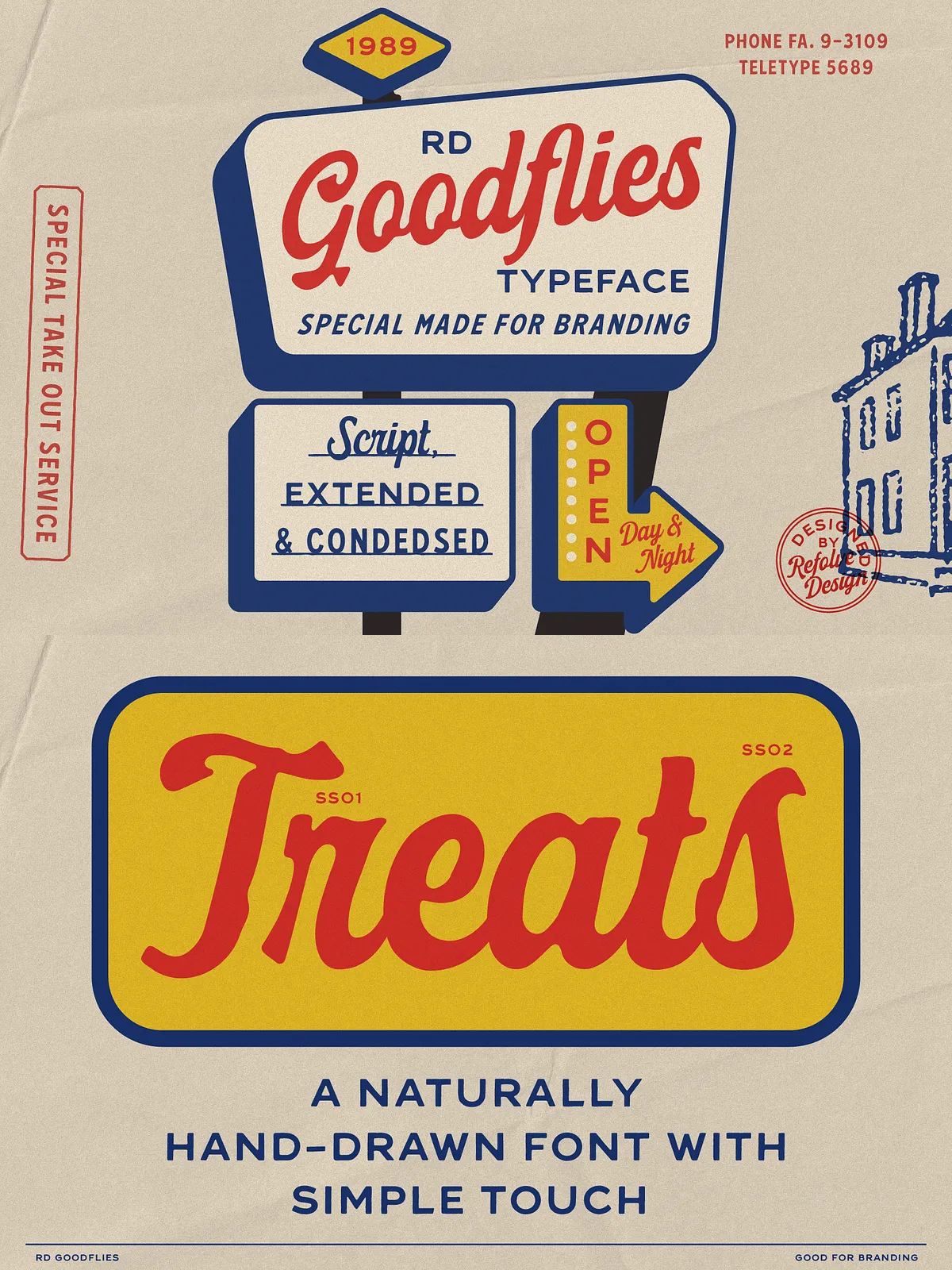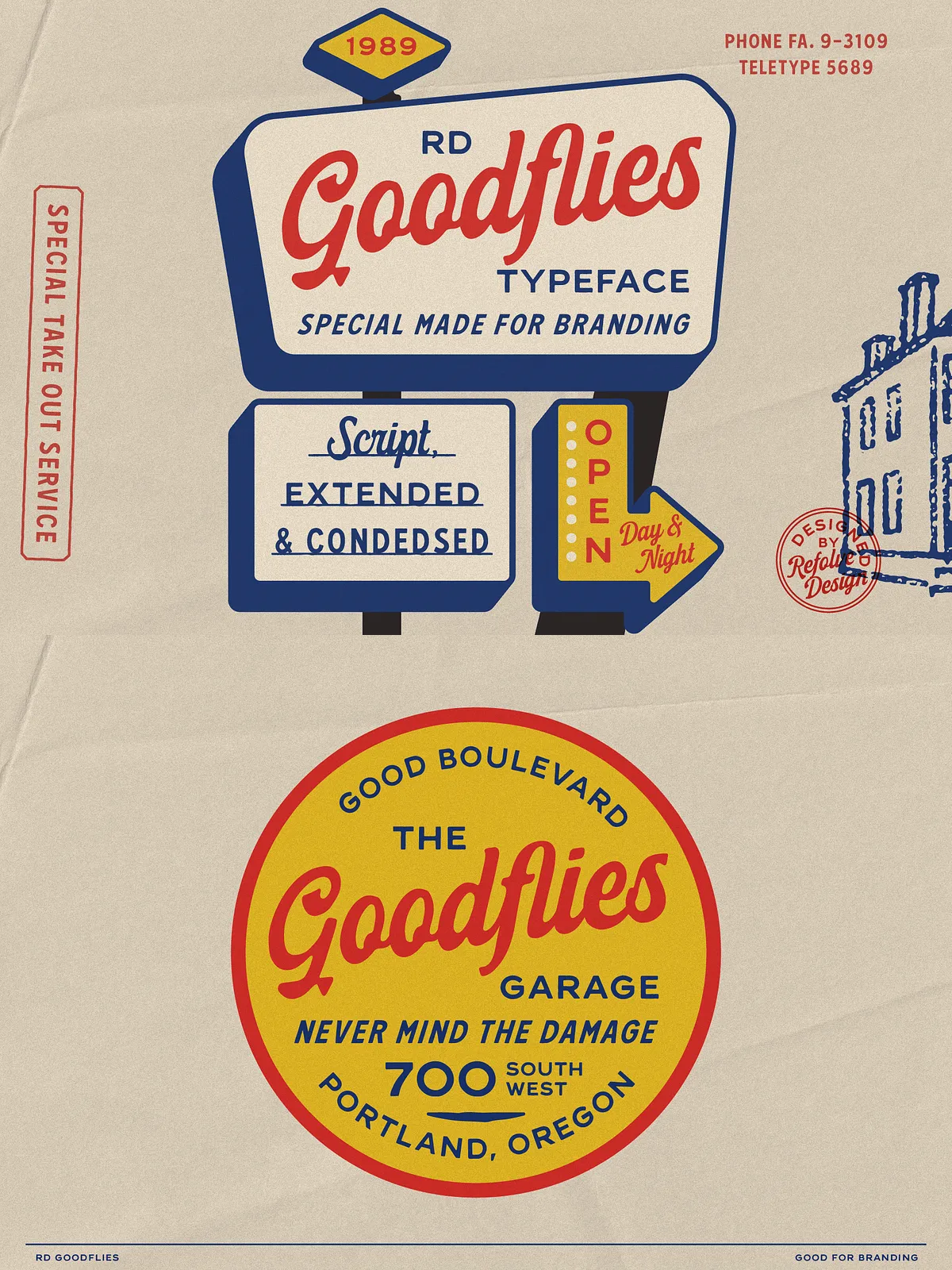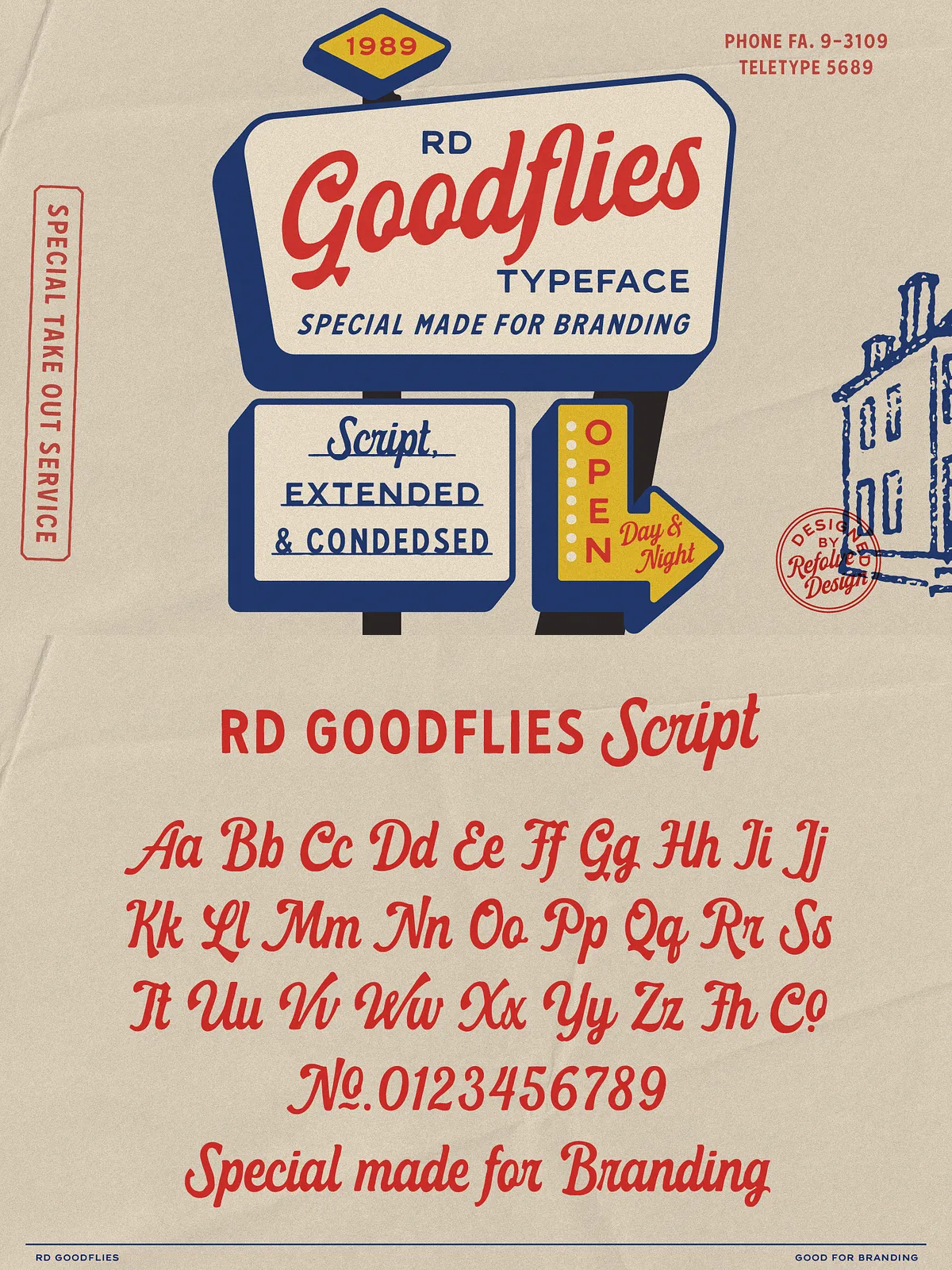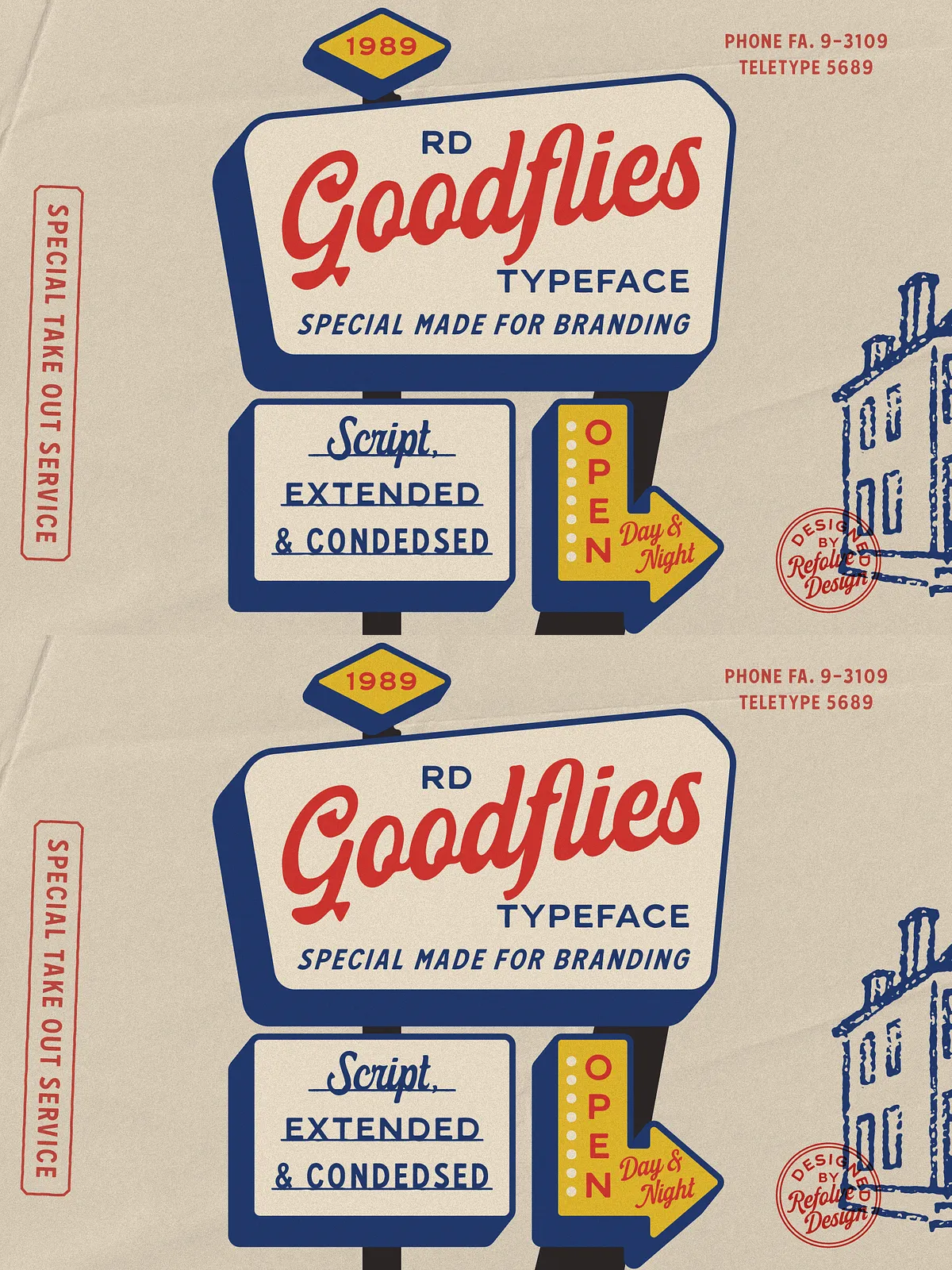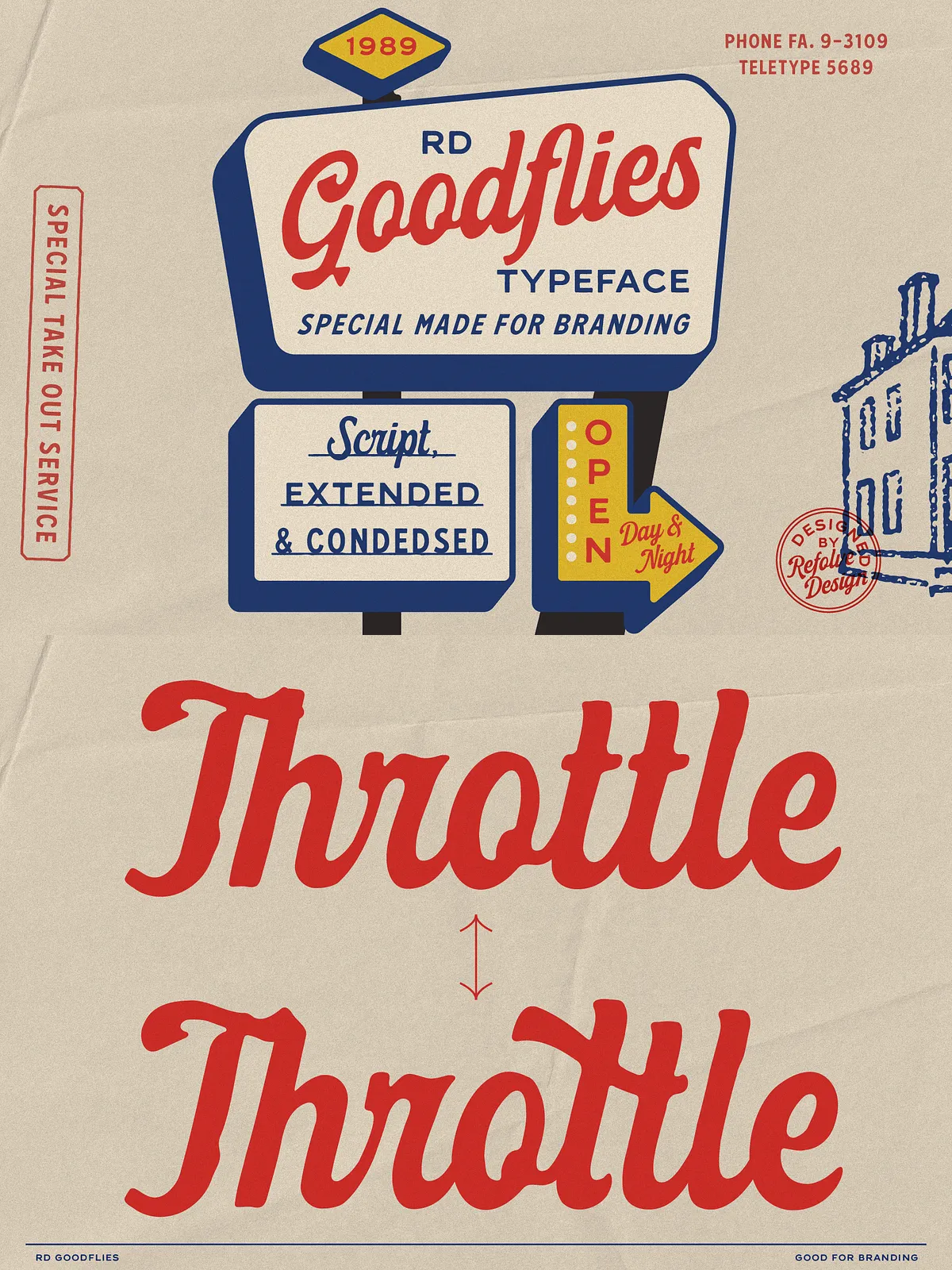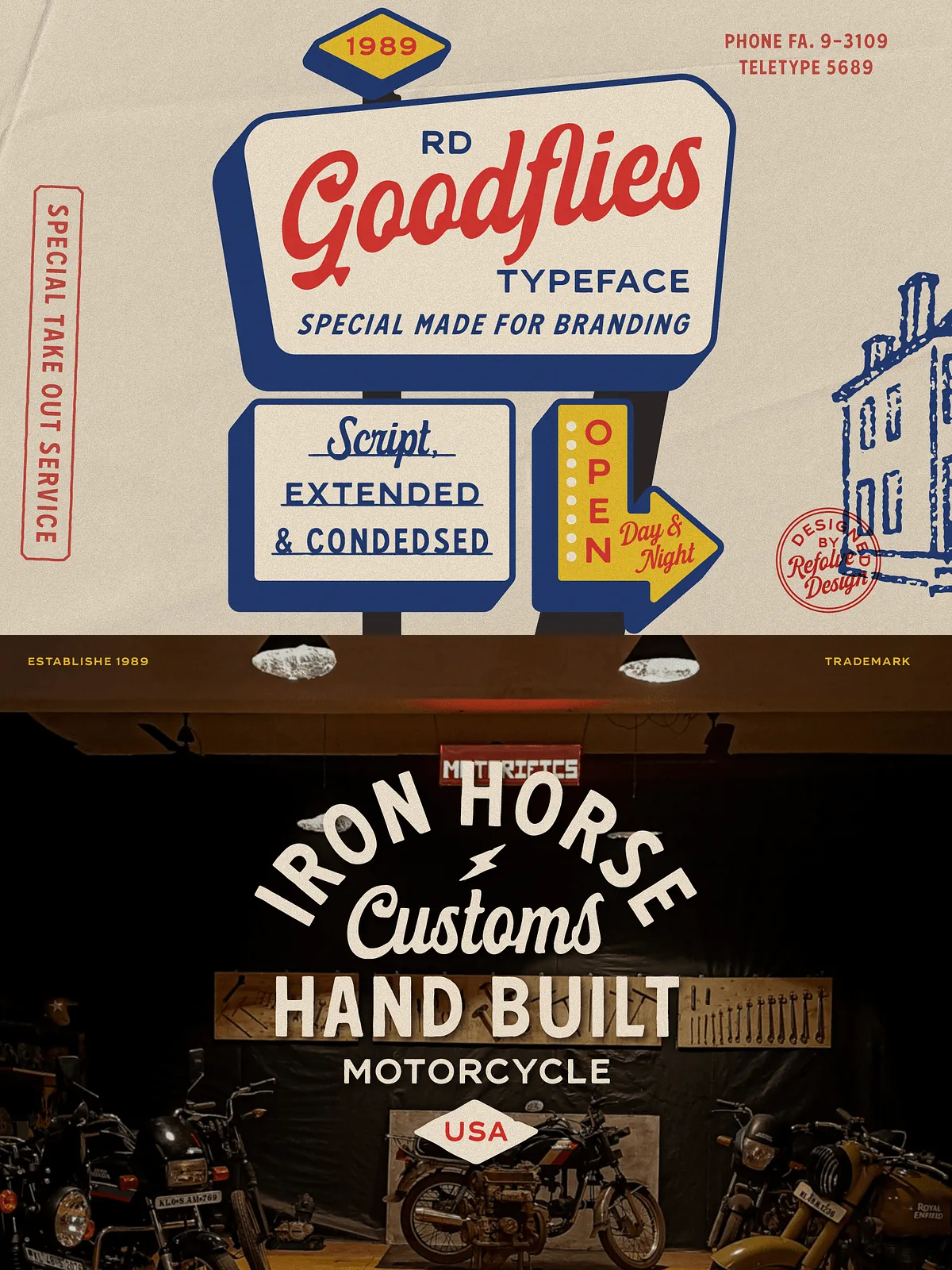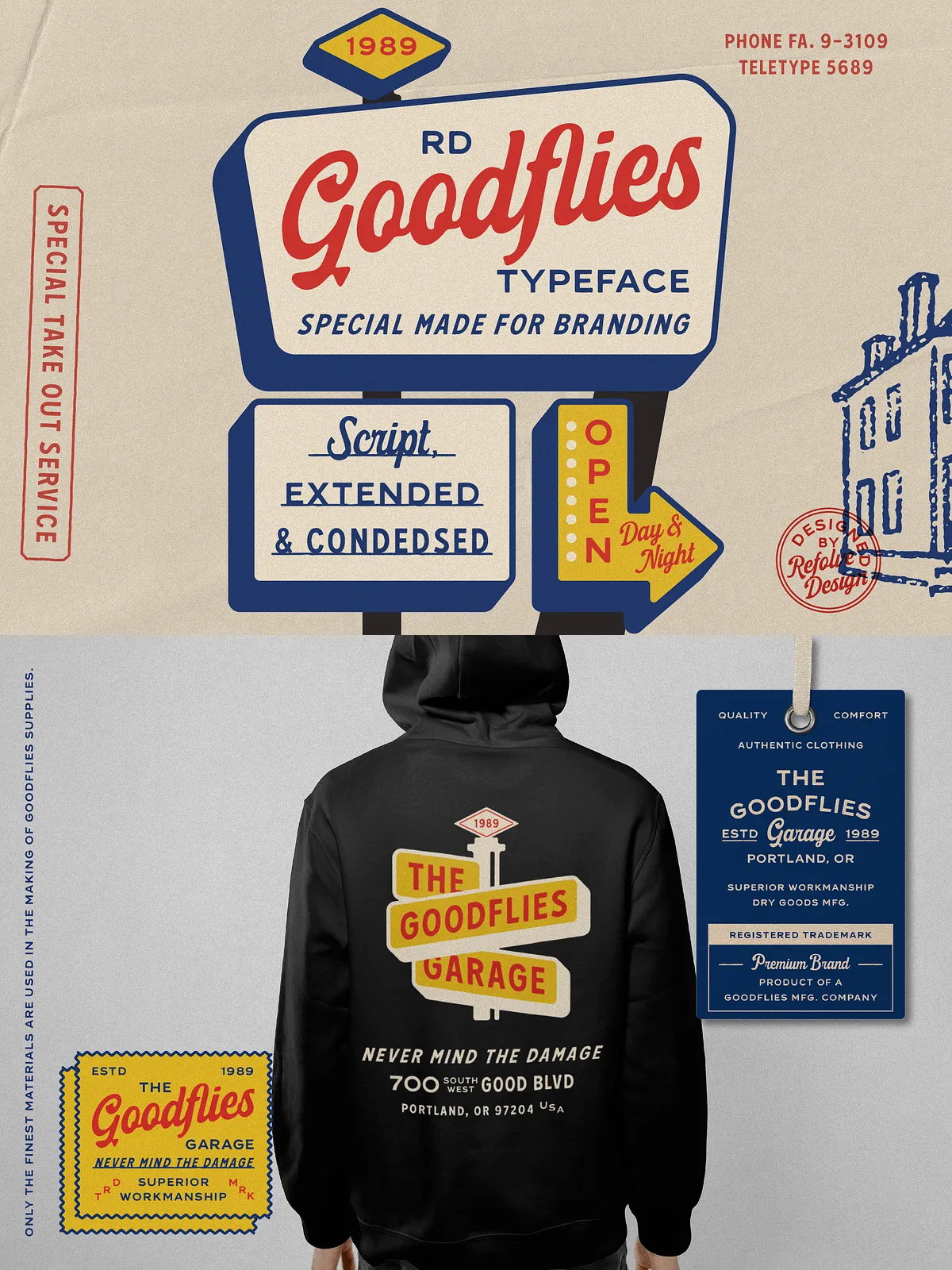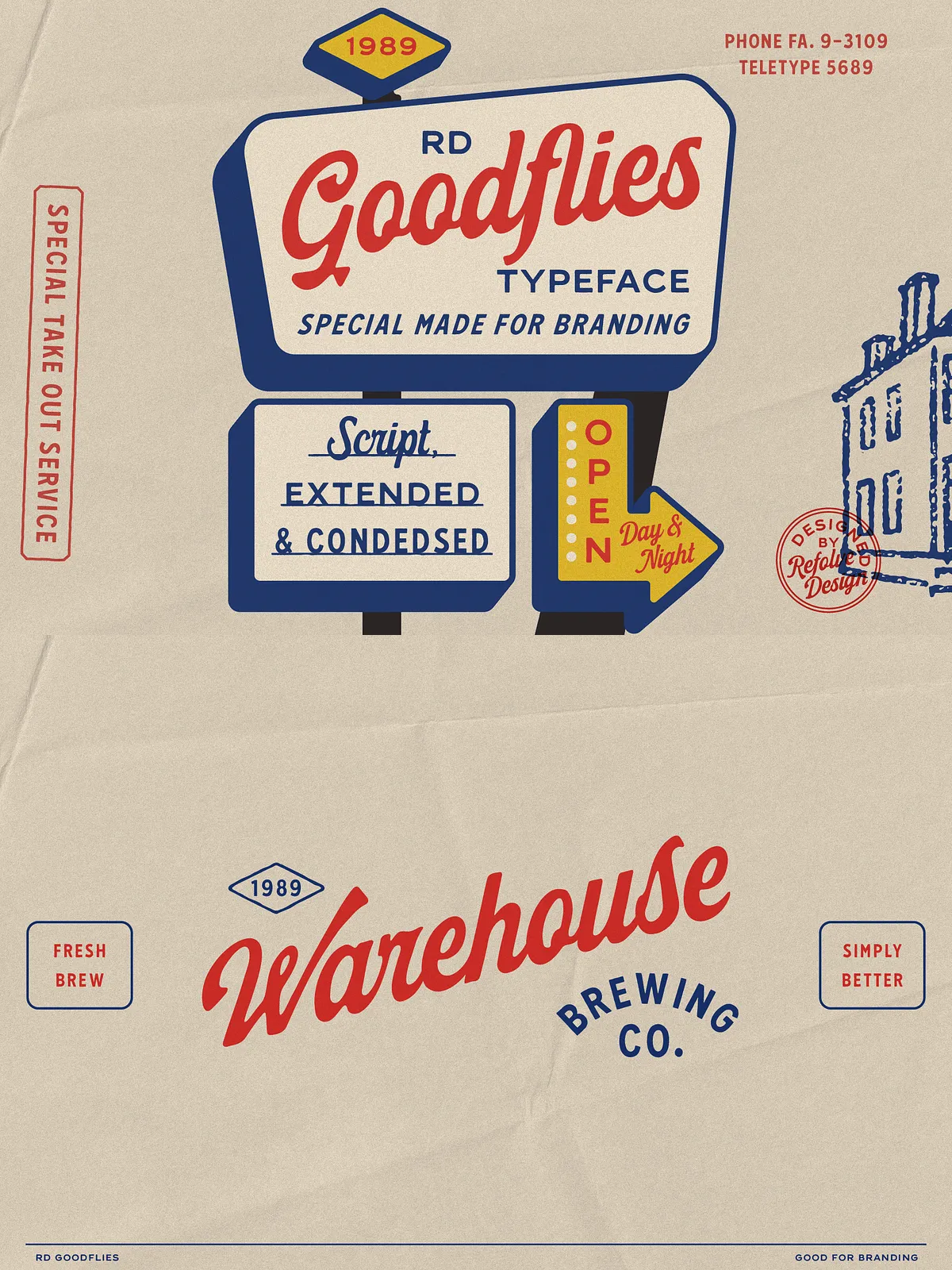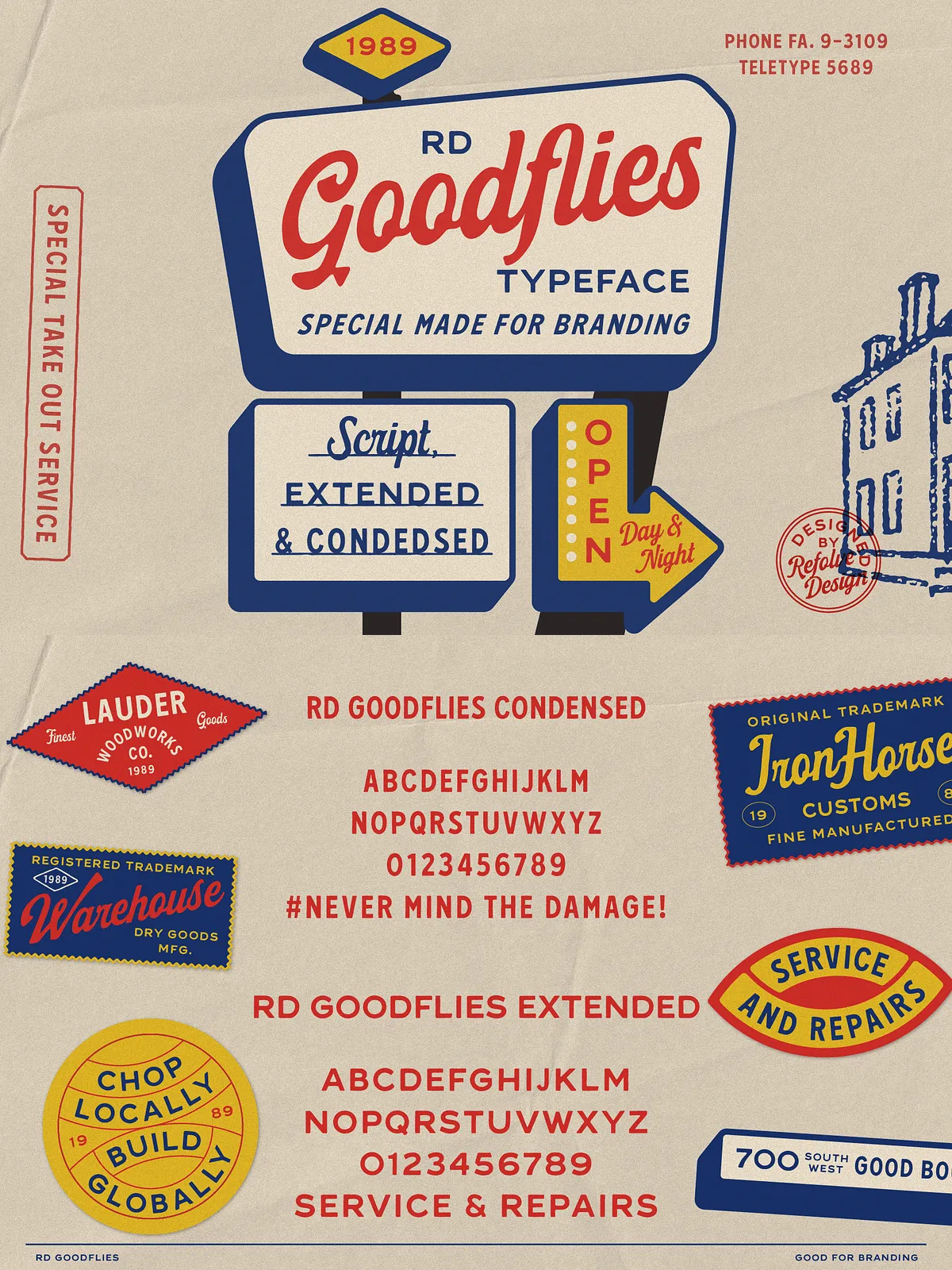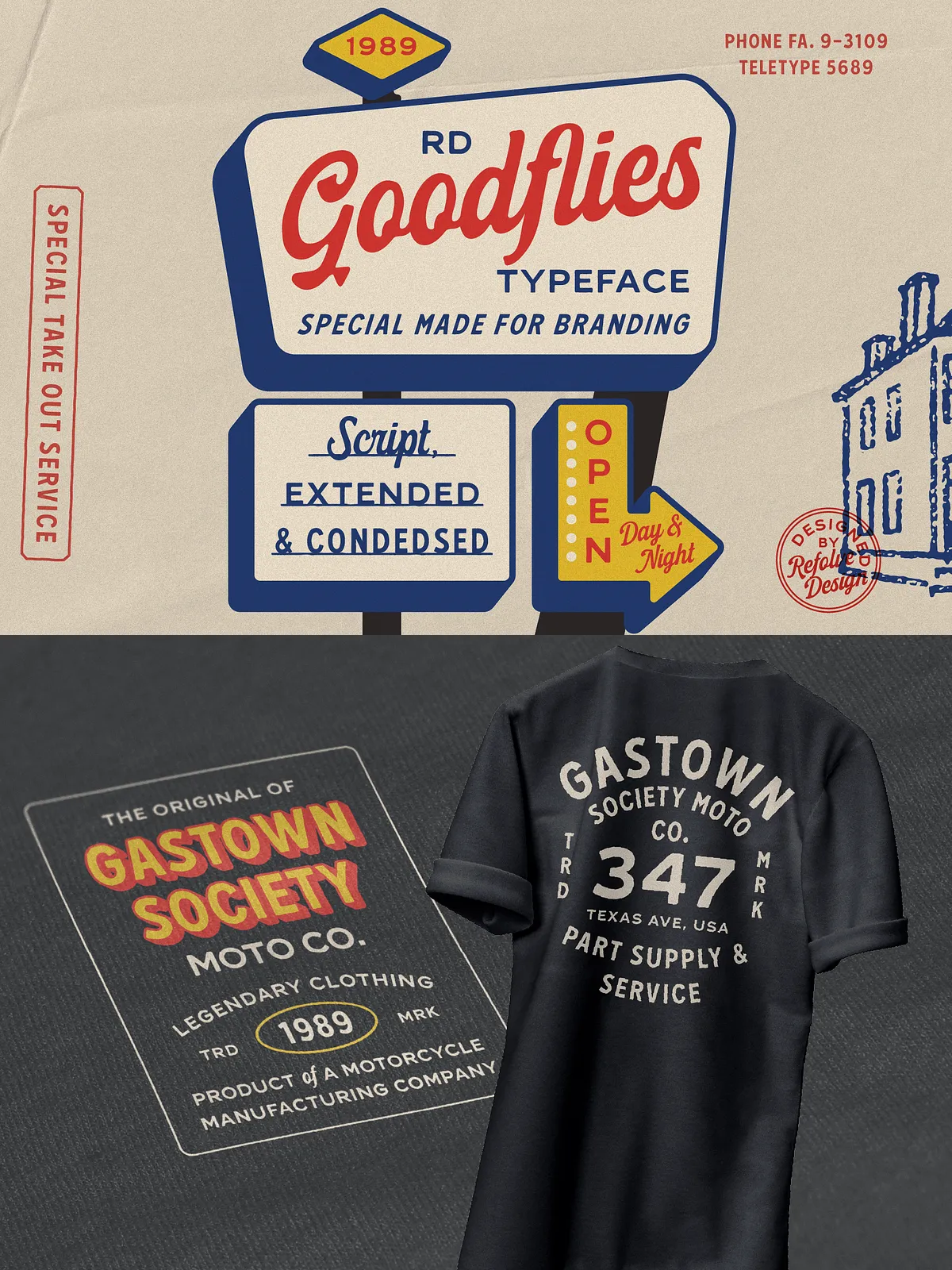
RD Goodflies delivers an authentic, hand-crafted aesthetic inspired by classic vintage labels. Designed specifically for branding and packaging, this font family brings warmth, personality, and timeless charm to every project. The collection includes condensed and extended display styles plus a connected script, allowing you to build cohesive brand systems that feel handcrafted and genuine. Whether you craft logos, posters, merchandise, or editorial covers, RD Goodflies provides the typographic tools to communicate authenticity and character.
Authentic Hand-Drawn Character
Every style in the RD Goodflies family preserves the irregularities and charm of hand lettering. The letterforms feel organic and human, helping brands create a personal connection with their audience.
Versatile Display Options
The Condensed and Extended weights let you control tone and presence. Use the Condensed style for compact labels, vertical signage, or tight compositions. Use the Extended style for bold, dramatic headlines and wide-format graphics.
Expressive Script Companion
The Script complements the display faces with fluid strokes and natural joins. Use it for names, signatures, or accent phrases to enhance a handcrafted look without losing legibility.
Ready for Branding and Production
RD Goodflies adapts well across print and digital workflows. The family renders crisply at large sizes for packaging and posters while remaining readable in short text blocks for labels and merchandise.
Ideal Use Cases
- Brand identities and logos — create distinct, nostalgic marks that stand out on packaging and signage.
- Product packaging and labels — give products a vintage, artisanal appearance that suggests craft and quality.
- Posters and advertising — craft eye-catching headlines and taglines with personality.
- Magazine and book covers — pair display faces with complementary text fonts for editorial impact.
- Album covers and merchandise — add character and authenticity to creative projects and physical goods.
- Web headers and hero images — use web-ready conversions to preserve brand voice online.
Pairing & Design Tips
Build Hierarchy
Combine RD Goodflies Extended for primary headlines with Condensed for secondary headings to create clear visual hierarchy. Use the Script sparingly as an accent to highlight names, taglines, or product descriptors.
Color and Texture
Pair the fonts with muted, earthy palettes and subtle grain textures to reinforce a vintage look. For a contemporary twist, contrast the hand-drawn letterforms with a clean geometric sans for body text.
Spacing and Scale
Allow generous letterspacing at large display sizes to preserve the handcrafted shapes. For condensed lockups, tighten tracking slightly but keep adequate leading to avoid crowding ornamental strokes.